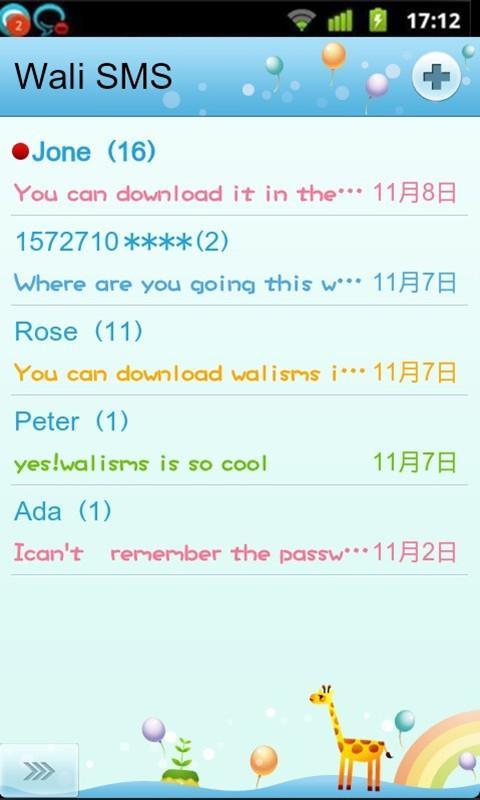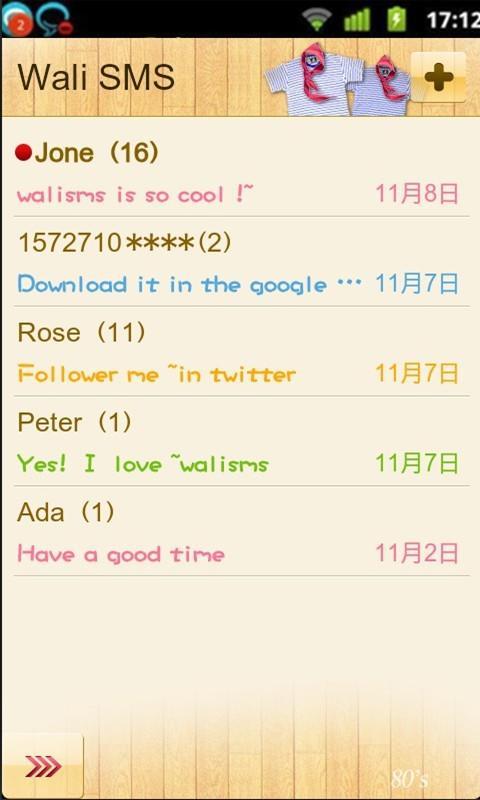
Wali SMS Doll Font plug-in
Wali SMS Doll Font is a cute font application.
Wali SMS Doll Font plug-in is a plug-in application applied to WaliSMS. With such a cute font, you're sure to fall in love with texting.